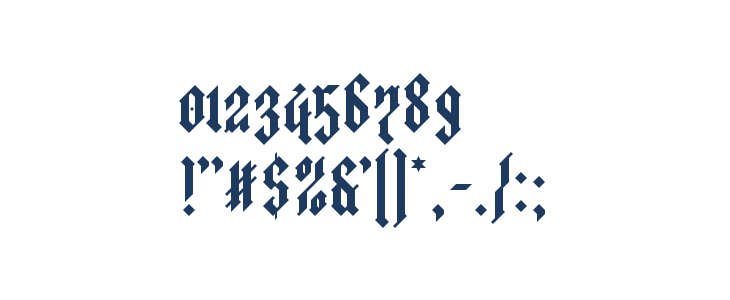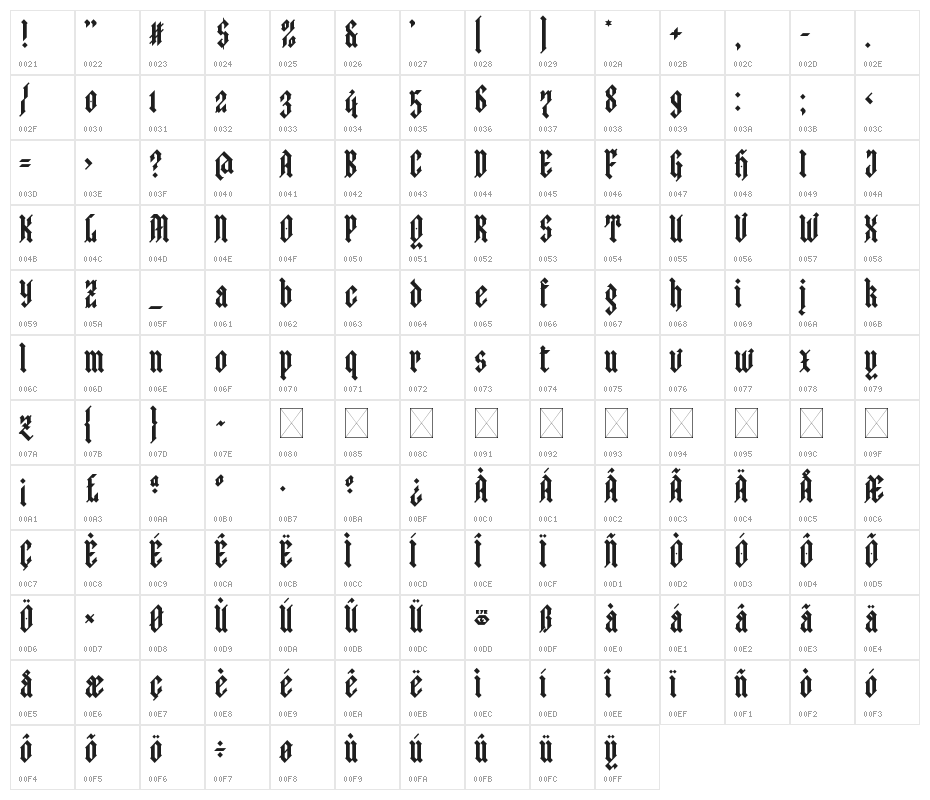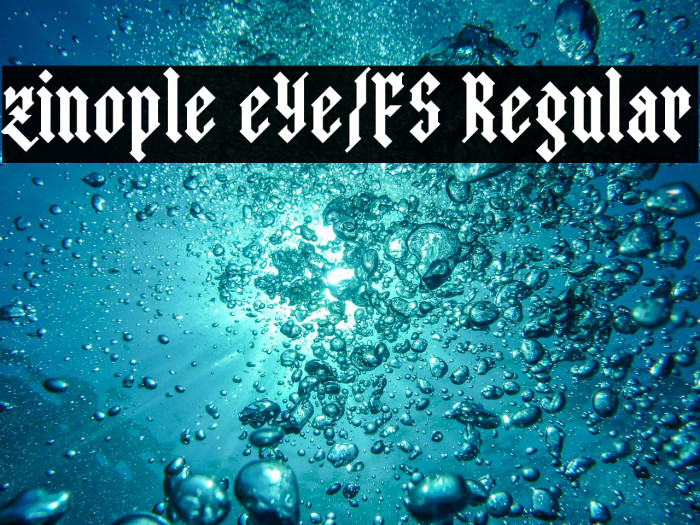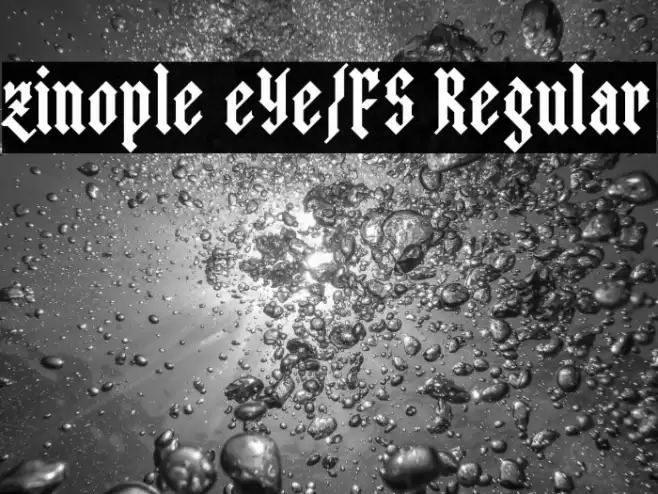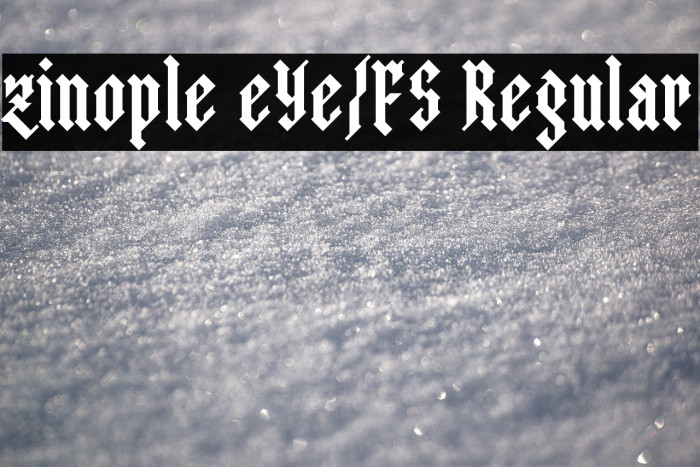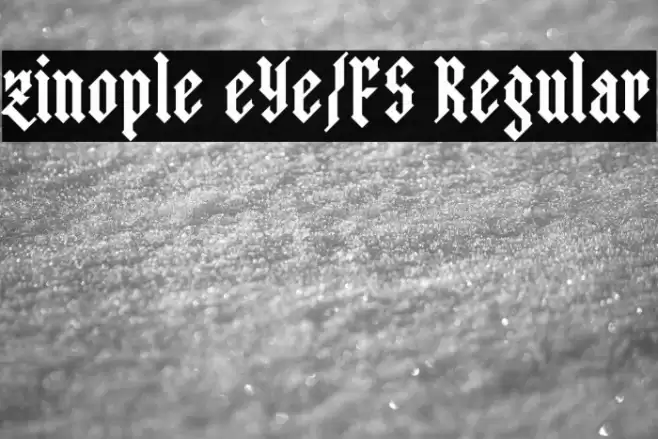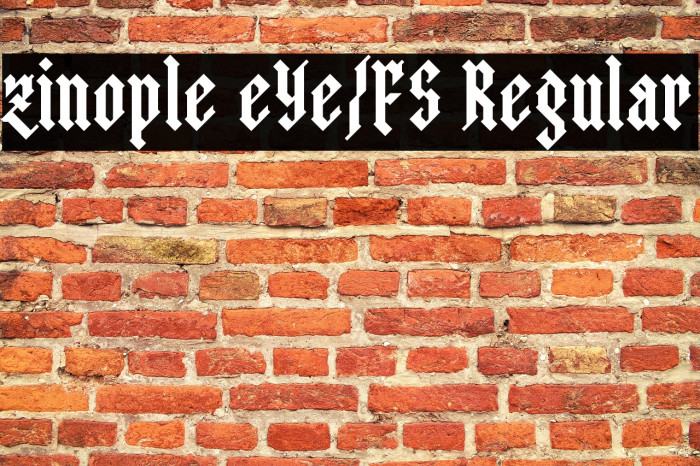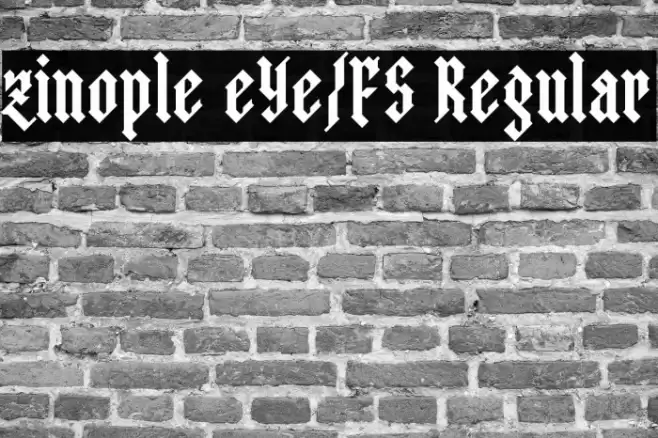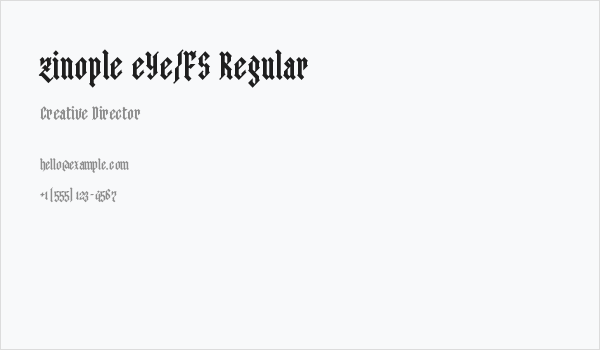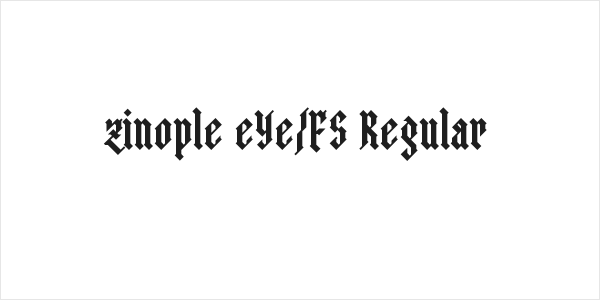
zinople eYe/FS Regular Font
zinople eYe/FS Regular Description
This font exhibits a bold and dramatic style, characterized by its sharp, angular lines and intricate detailing reminiscent of traditional blackletter typography. The uppercase letters are tall and commanding, while the lowercase letters maintain a consistent flow with a slightly condensed appearance. The numerals and special characters are designed to complement the overall aesthetic, featuring similar angular strokes and decorative elements. This font is ideal for creating a strong visual impact, evoking a sense of history and tradition with a modern twist.
| Proposed Projects | Suitable for projects that require a historical or gothic touch, such as book covers, posters, branding for craft breweries, or themed event invitations. |